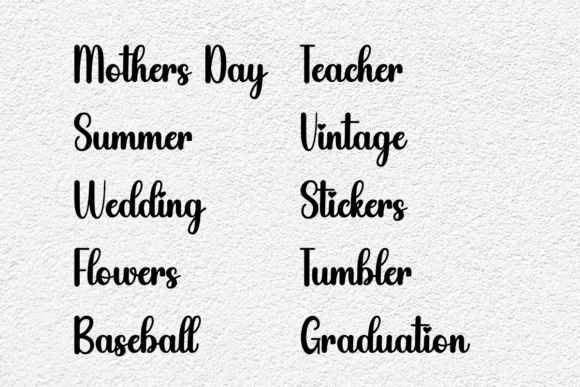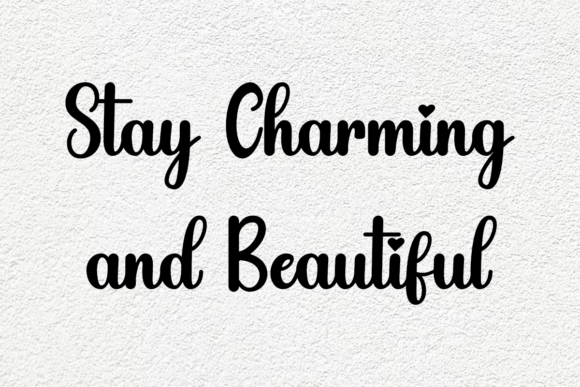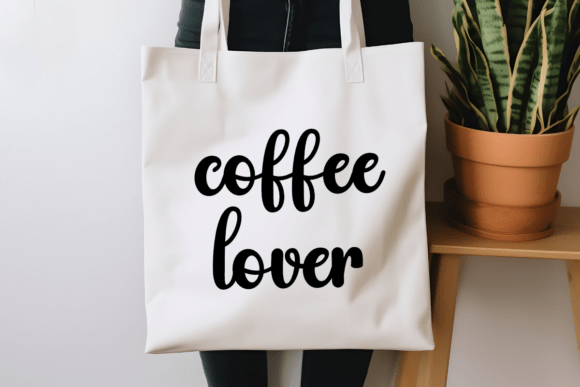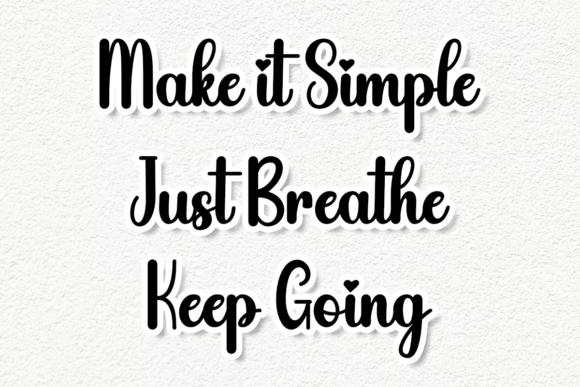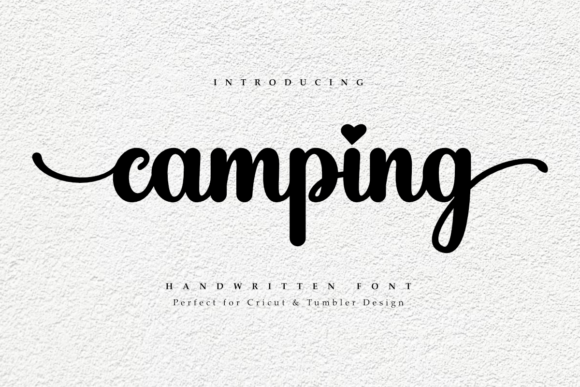
Camping Font: A Charming Handwritten Typeface for Creative Projects
Are you looking for a font that can add a touch of warmth, joy, and romance to your designs? Look no further than Camping Font, a charming and flowing handwritten font with a sweet cursive style. This lovely typeface is perfect for a wide range of creative projects, from branding and logos to wedding invitations and greeting cards.
What is Camping Font?
Camping Font is a beautifully crafted handwritten font that features a unique and elegant cursive style. Its flowing lines and curves give it a charming and whimsical feel, making it perfect for designs that require a personal touch. The font is designed to be highly legible, making it suitable for use in a variety of contexts, from body text to headings and titles.
Key Features of Camping Font
- Handwritten style: Camping Font features a beautiful handwritten style that gives it a personal and unique feel.
- Cursive script: The font’s cursive script makes it perfect for designs that require a touch of elegance and sophistication.
- Warm and inviting: Camping Font has a warm and inviting feel that makes it perfect for designs that require a personal touch.
- Highly legible: The font is designed to be highly legible, making it suitable for use in a variety of contexts.
Uses for Camping Font
Camping Font is a versatile typeface that can be used in a wide range of creative projects. Here are some ideas to get you started:
- Branding and logos: Use Camping Font to create a unique and memorable brand identity that stands out from the crowd.
- Wedding invitations: Add a touch of romance and elegance to your wedding invitations with Camping Font.
- Greeting cards: Use Camping Font to create beautiful and heartfelt greeting cards for special occasions.
- Fashion designs: Camping Font is perfect for fashion designs that require a touch of elegance and sophistication.
- Lookbooks: Use Camping Font to create stunning lookbooks that showcase your products in style.
- Marketing materials: Add a touch of warmth and personality to your marketing materials with Camping Font.
Why Choose Camping Font?
There are many reasons why you should choose Camping Font for your next creative project. Here are a few:
- Unique style: Camping Font has a unique and elegant style that sets it apart from other fonts.
- High-quality design: The font is designed to be highly legible and visually appealing.
- Versatile: Camping Font can be used in a wide range of creative projects, from branding and logos to wedding invitations and greeting cards.
- Elegant yet relaxed: The font has an elegant yet relaxed feel that makes it perfect for designs that require a personal touch.
Tips for Using Camping Font
Here are a few tips for using Camping Font in your creative projects:
- Use it sparingly: Camping Font is a beautiful font, but it can be overwhelming if used too much. Use it sparingly to add a touch of elegance and sophistication to your designs.
- Pair it with other fonts: Camping Font pairs well with other fonts, such as sans-serif fonts and serif fonts. Experiment with different pairings to find the one that works best for your design.
- Adjust the size and color: Adjust the size and color of Camping Font to suit your design needs.
Camping Font is a charming and flowing handwritten font with a sweet cursive style that is perfect for a wide range of creative projects. Its unique style, high-quality design, and versatility make it a great choice for designers and crafters. Whether you’re looking to create a brand identity, wedding invitations, or greeting cards, Camping Font is a great choice. So why not give it a try and see how it can add a touch of warmth, joy, and romance to your designs?